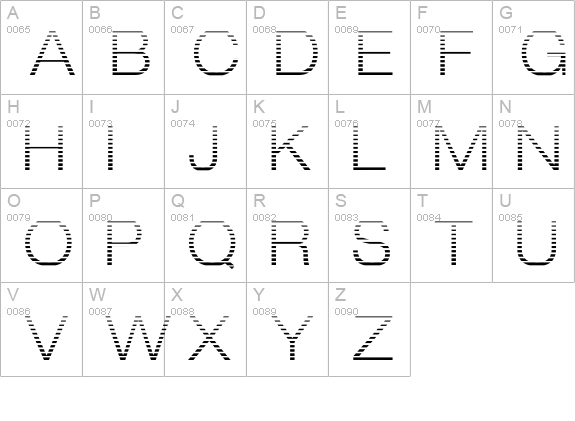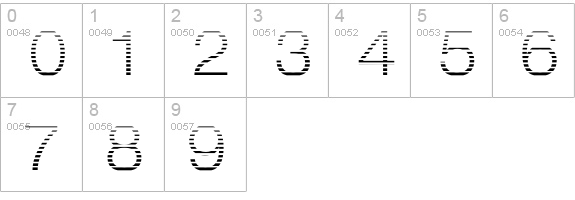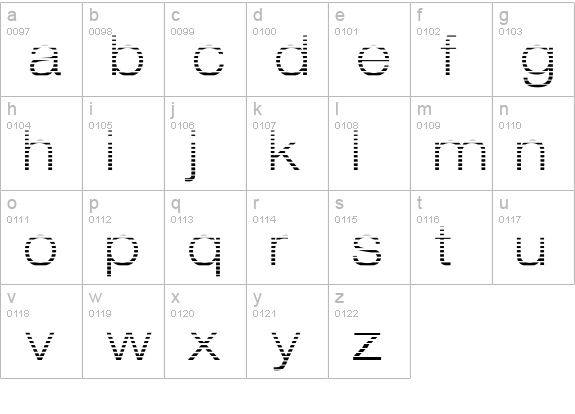
Strait Cut Font Details
Introducing Strait Cut font - a sleek and modern typeface that exudes sophistication and elegance. With its clean lines and sharp edges, this font is perfect for creating a professional and contemporary look for your projects. The versatility of Strait Cut font allows it to be used in a variety of design applications, from branding to editorial design. What's even better is that Strait Cut font is completely free to download at FontsMarket.com. Yes, you read that right - you can get your hands on this stylish font without spending a dime. So why wait? Add a touch of class to your designs with Strait Cut font today!